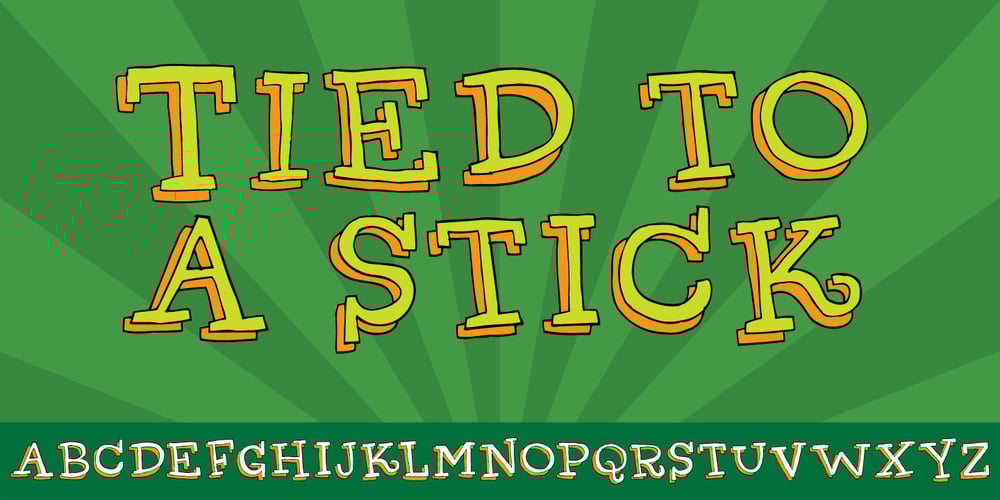
Tied To A Stick Font Family was designed by Jakob Fischer and published by PizzaDude.dk. Tied To A Stick contains 1 styles and family package options. A serif font with shadow – done with a steady, but yet shaky hand. Make some catchy headlines with Tied To A Stick. Throw in some different colors for the stroke, the letters and the shadow and make it really look like something homemade! I would use this font for for my next handmade craft project – and I advice you to do the same! 🙂 Comes with ligatures which substitutes double letters!